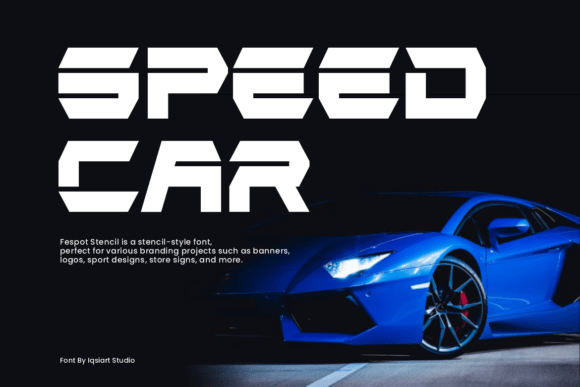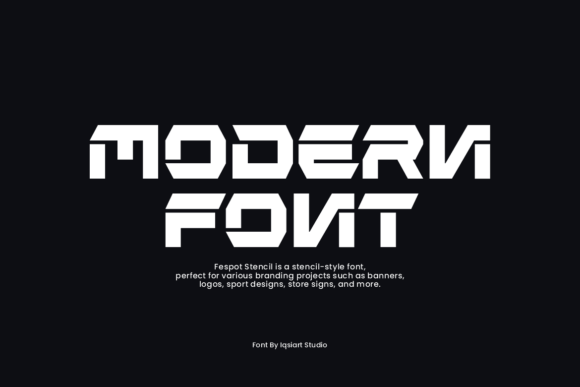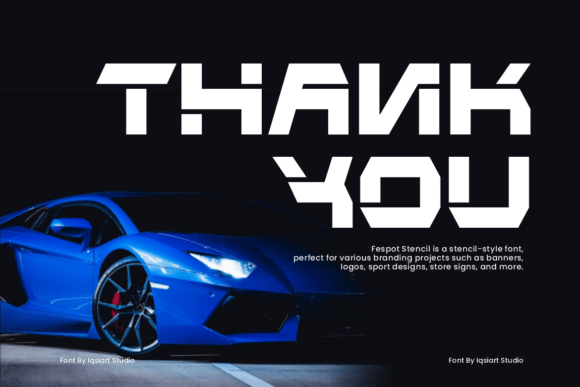
Unleash Your Design Potential with Fespot Stencil Font
Have you ever been in the middle of a design project, and suddenly, you’re stuck on finding the perfect font? I recall a particularly frustrating experience while working on a branding project for a high-tech gadget. My client wanted a font that screamed innovation, speed, and cutting-edge technology. After hours of scouring through font libraries, I stumbled upon Fespot Stencil, and it was love at first sight! In this article, we’ll dive into the world of Fespot Stencil, exploring its features, uses, and everything in between.
A First Impression: What Makes Fespot Stencil Special
Fespot Stencil is an aggressive and futuristic display font designed to convey maximum speed and cutting-edge technology. Characterized by sharp angles, geometric forms, and strategically placed stencil cuts, this typeface is a perfect match for high-octane themes. It’s the ultimate choice for branding in racing, e-sports, action video games, high-tech product packaging, sport signage, and any project that needs a strong, dynamic, and powerful aesthetic.
Honest Review: The Good, the Bad, and the Quirks
What I Love About Fespot Stencil ✨
- 💥 **High-impact visuals**: Fespot Stencil is designed to grab attention and make a statement.
- 🔍 **Versatility**: This font can be used for a wide range of projects, from digital to print.
- ⚡️ **Futuristic vibe**: The stencil cuts and geometric forms give it a cutting-edge feel.
- 📈 **Scalability**: Fespot Stencil looks great in various sizes, from small captions to large headlines.
- ⚠️ **Limited use in body text**: Due to its bold and stencil-like design, Fespot Stencil might not be the best choice for lengthy paragraphs.
- 🤯 **Requires careful kerning**: Some characters may need manual kerning to achieve optimal spacing.
- Experiment with OpenType features, such as stencil cuts and geometric alternates.
Fespot Stencil was designed with the intention of creating a font that embodies the spirit of high-speed racing and cutting-edge technology. The designer aimed to craft a typeface that would not only convey a sense of power and dynamism but also provide a unique visual identity for brands in high-octane industries.
Q: What type of projects is Fespot Stencil best suited for?
A: Fespot Stencil is perfect for high-energy projects, such as racing, e-sports, action video games, high-tech product packaging, and sport signage.
Q: Can I use Fespot Stencil for body text?
A: While Fespot Stencil can be used for short paragraphs, it’s not ideal for lengthy body text due to its bold and stencil-like design.
Q: Does Fespot Stencil support OpenType features?
A: Yes, Fespot Stencil supports OpenType features, including stencil cuts, geometric alternates, and glyphs.
| Font Name | Fespot Stencil Font |
| Author | IqsiartStudio |